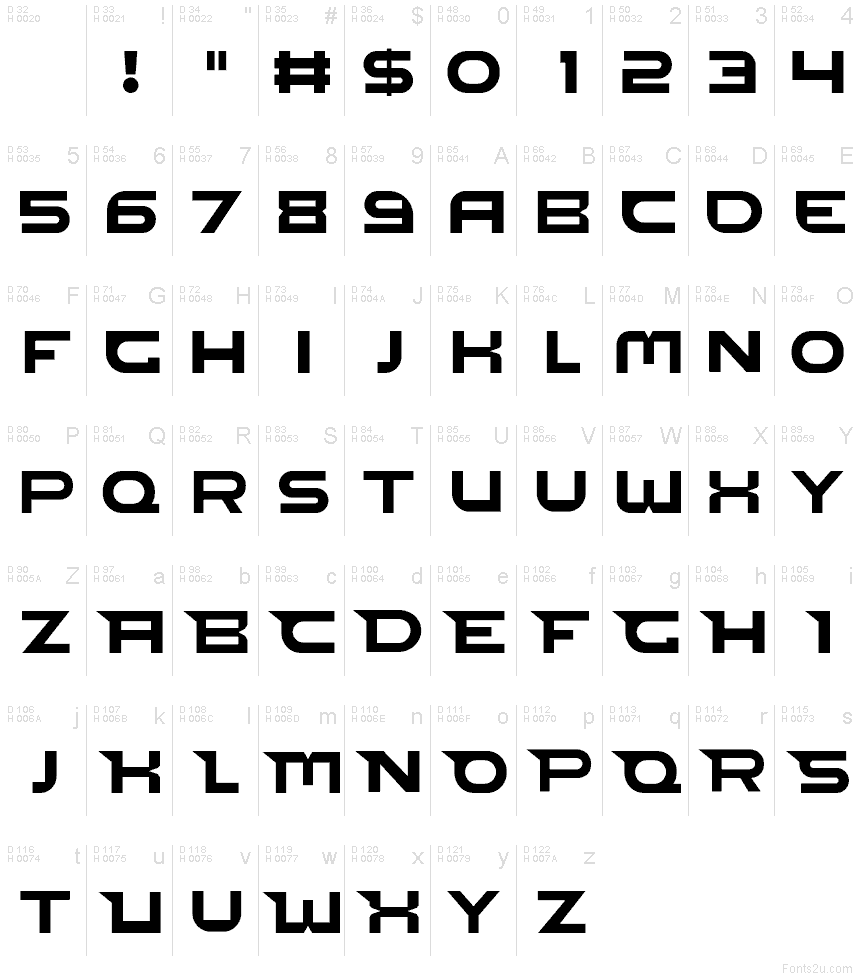
Dynatecha
Dynatecha font is an expanded futuristic display font by Ffeeaarr. Its geometric shapes and sharp, technical style showcase modern and industrial design influences. This typeface immediately captures attention with its striking appearance that cannot be overlooked.